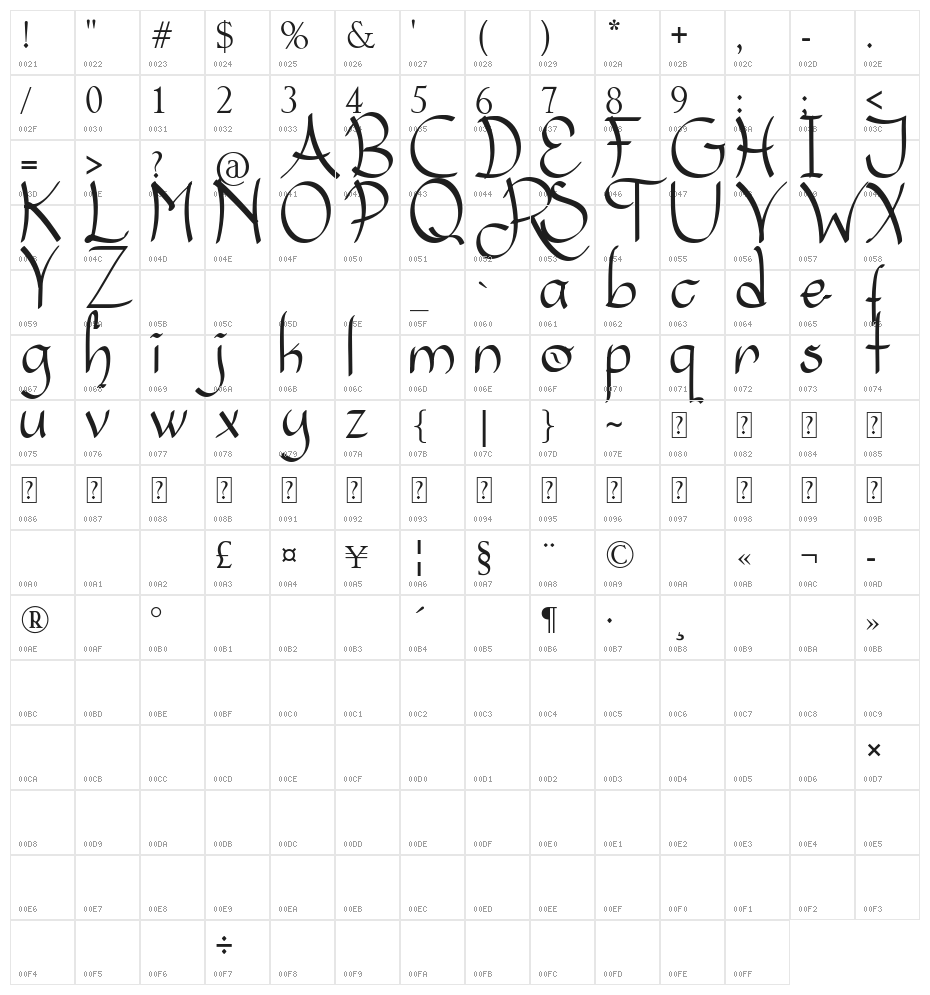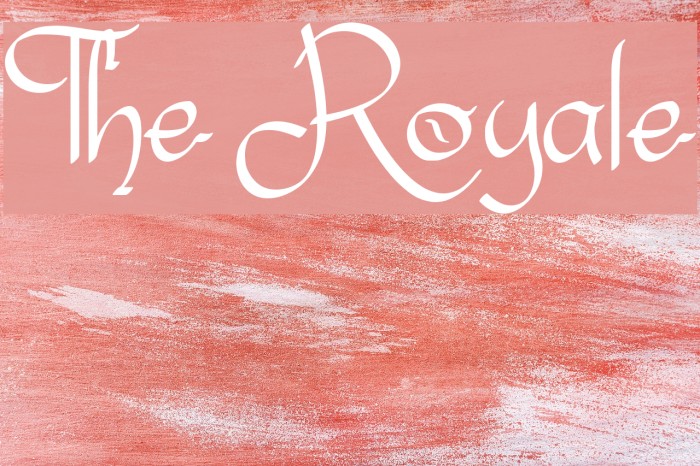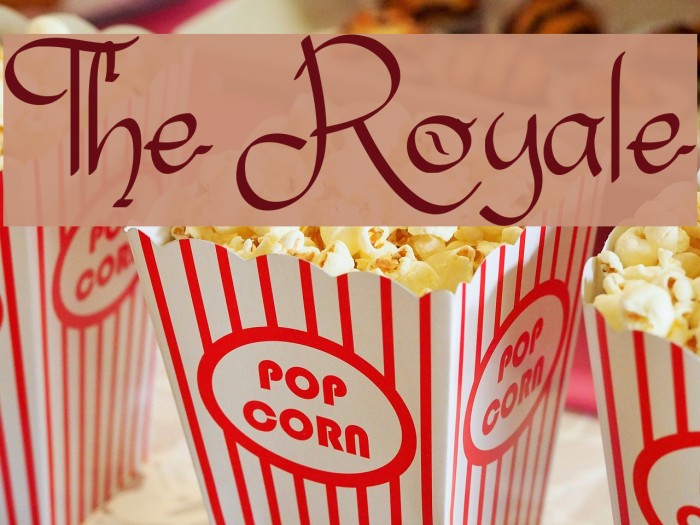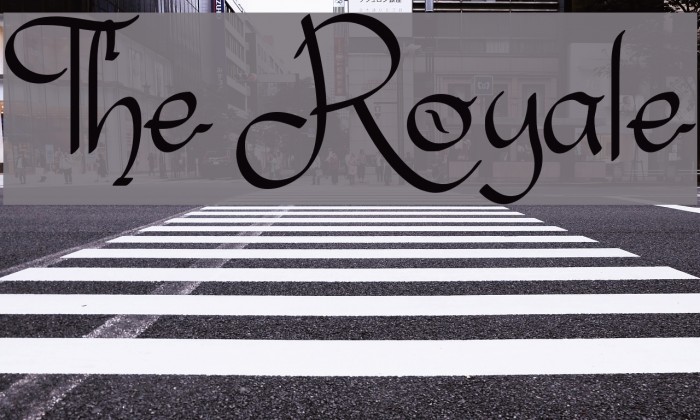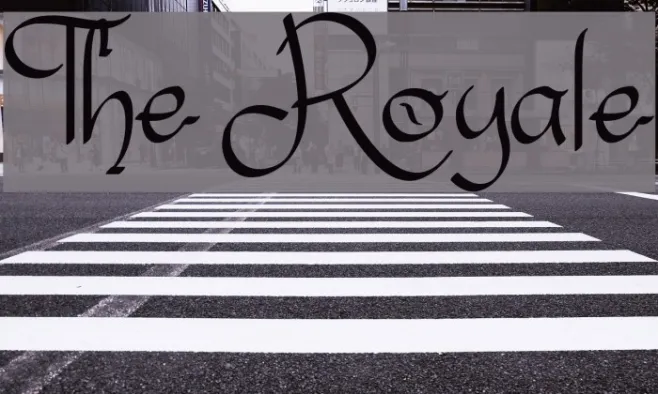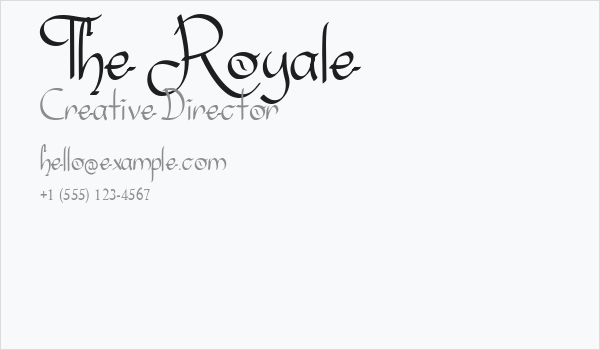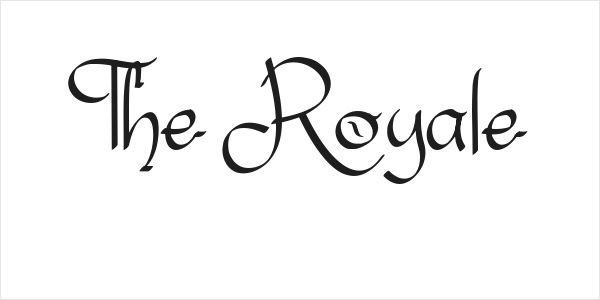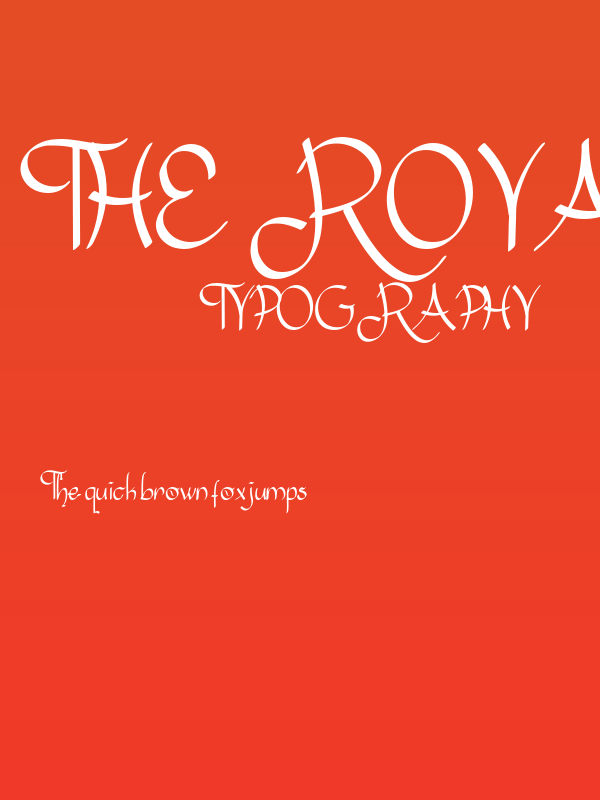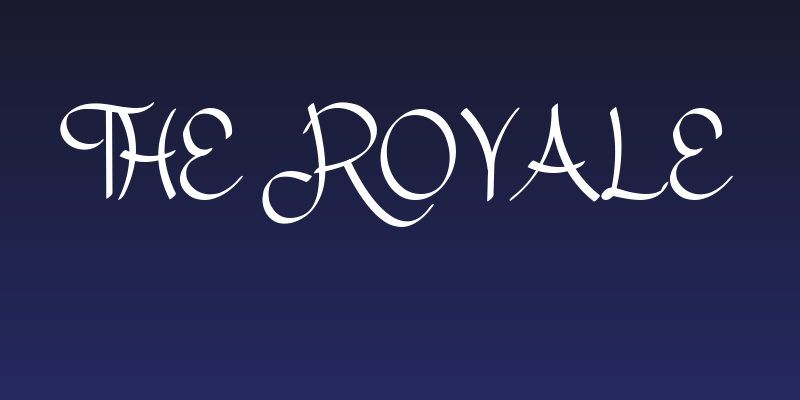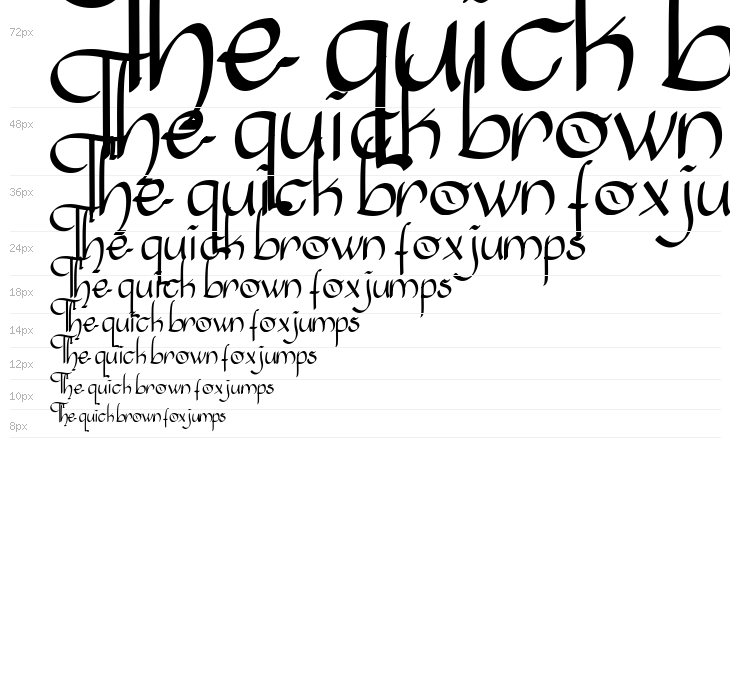
The Royale Font
The Royale Description
This font features an elegant and flowing design, characterized by its calligraphic style. The uppercase letters exhibit a graceful, sweeping form with subtle curves and pointed serifs, giving them a regal appearance. The lowercase letters maintain a consistent flow, with some characters featuring unique flourishes that add to the overall sophistication. Numbers are designed with a similar elegance, ensuring readability while maintaining the font's decorative nature. The special characters are crafted to match the style, providing a cohesive look across all elements.
| Use Case | Logos, Invitations, Headlines |
| Proposed Projects | Ideal for wedding invitations, luxury branding, high-end product packaging, and elegant event posters. |